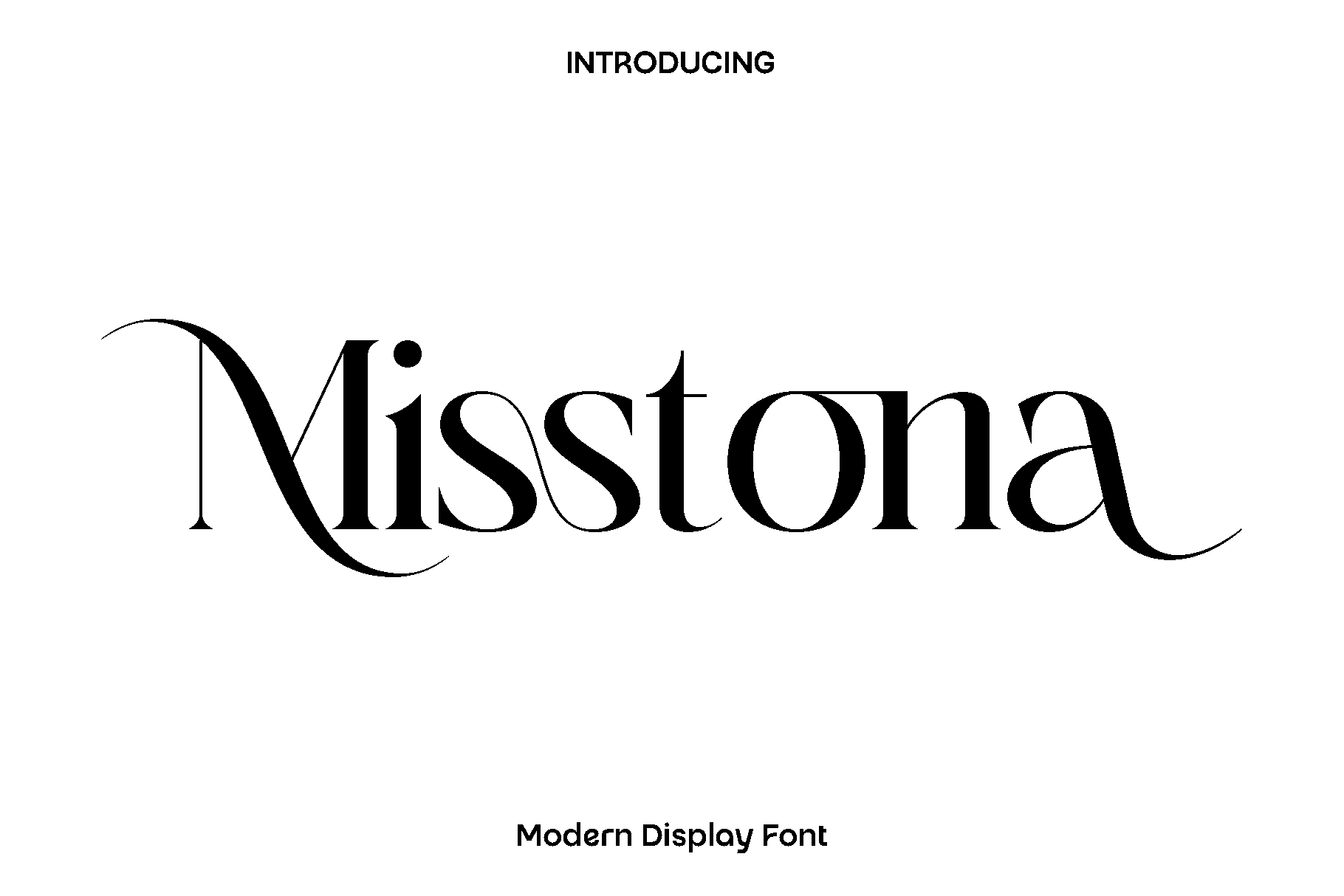
Misstona - Modern Display Font
Misstona is a modern and versatile font designed to bring elegance and style to a wide range of creative projects. Its carefully crafted letterforms combine readability with aesthetic appeal, making every word feel polished and refined. Misstona is perfect for designers who want a font that balances functionality with sophistication, allowing your designs to communicate professionalism and creativity effortlessly.
This font shines in projects such as books, magazines, branding, logos, photography, quotes, blog headers, posters, and advertisements. Its clean and stylish characters adapt beautifully to both digital and print applications, giving your work a cohesive and memorable look. Misstona’s versatility ensures it can be used for bold headlines, subtle body text, or expressive typographic statements.
Designed with both elegance and practicality in mind, Misstona offers full support for uppercase, lowercase, numerals, and multilingual characters. Its OpenType and TrueType formats provide seamless integration into any design workflow, making it an essential tool for creators seeking a modern, stylish, and highly functional typeface.
Misstona brings clarity, style, and versatility to every project, making it the ideal choice for designers who want their work to stand out with elegance and impact.